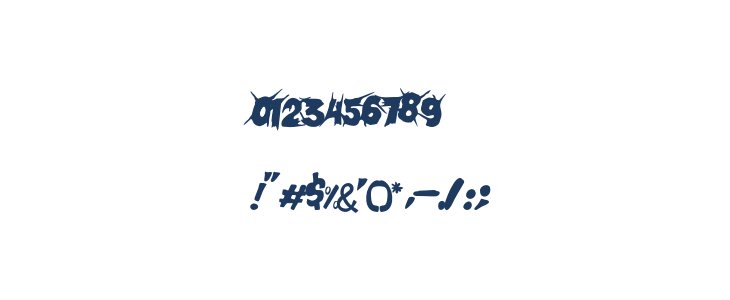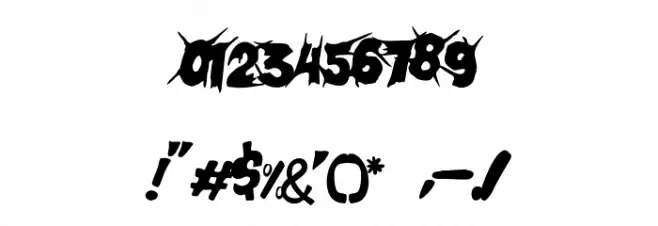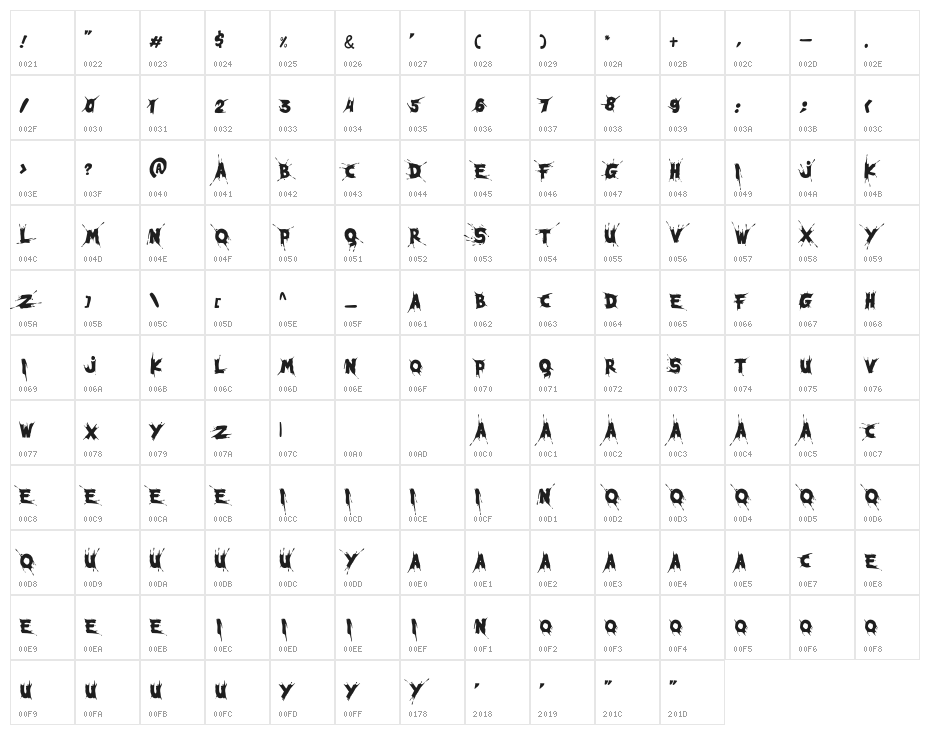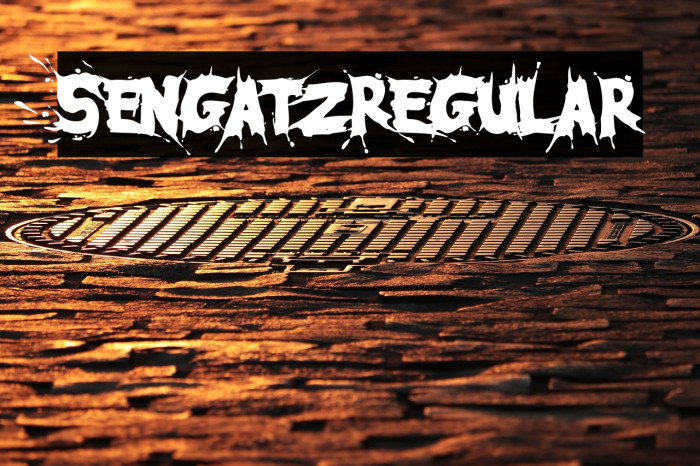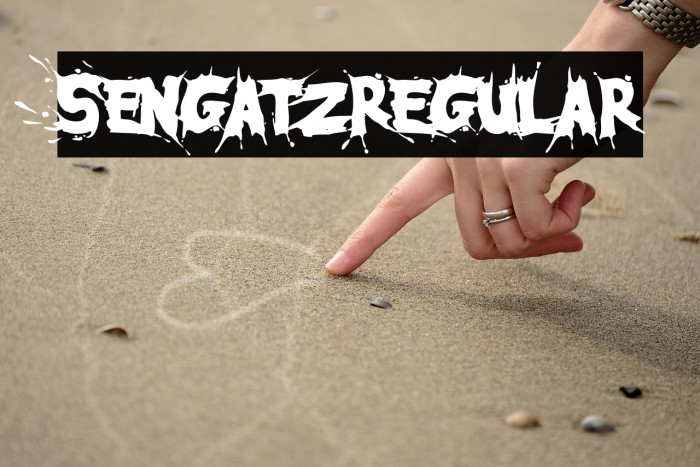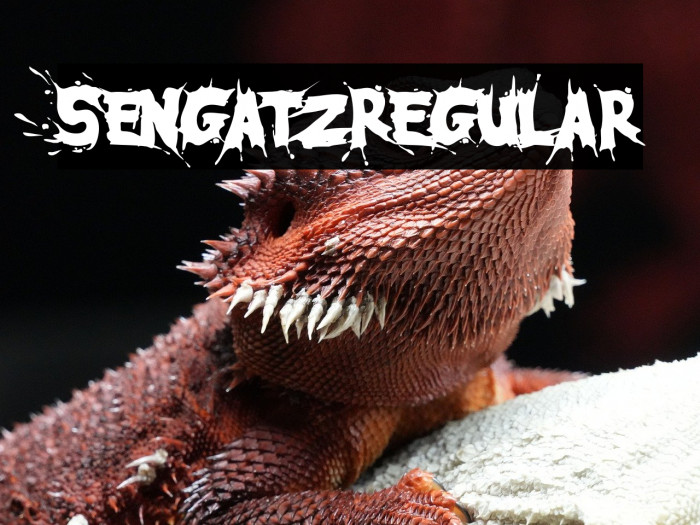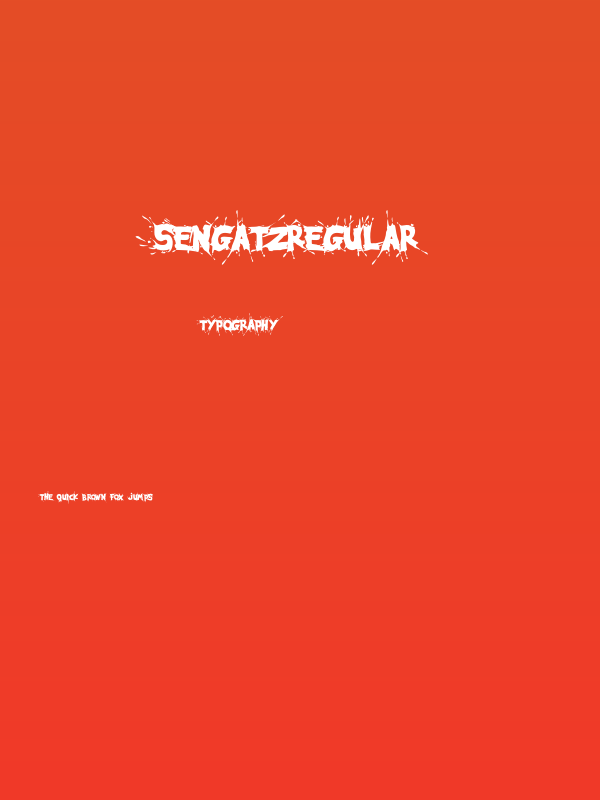
SengatzRegular Font
SengatzRegular Description
This font features a highly decorative and edgy style, characterized by sharp, jagged edges and a chaotic, graffiti-like appearance. The letters are bold and dynamic, with an aggressive flair that suggests movement and energy. The uppercase and lowercase letters maintain a consistent style, while the numbers and special characters complement the overall aesthetic. This font is designed to capture attention and convey a sense of rebellion or urban culture, making it ideal for projects that require a bold and unconventional look.
| Overall Style | Urban, Edgy, Graffiti |
| Use Case | Logos, Posters, Album Covers |
| Proposed Projects | Ideal for street art designs, music album covers, skateboarding brands, and urban-themed posters. |